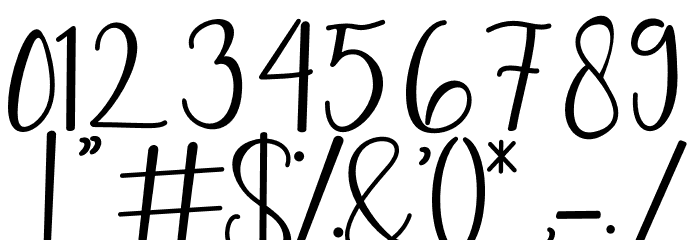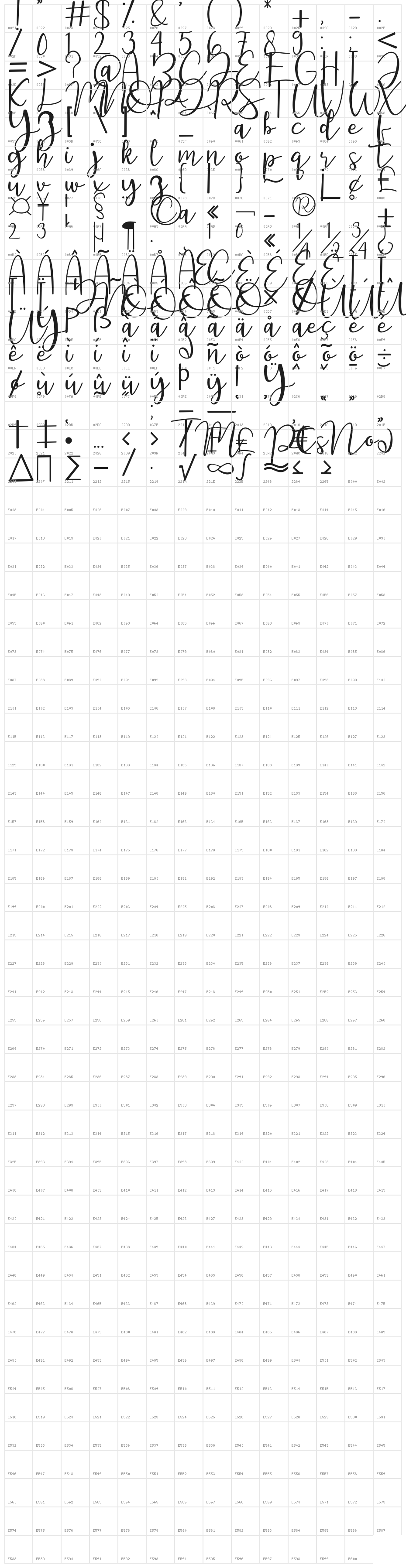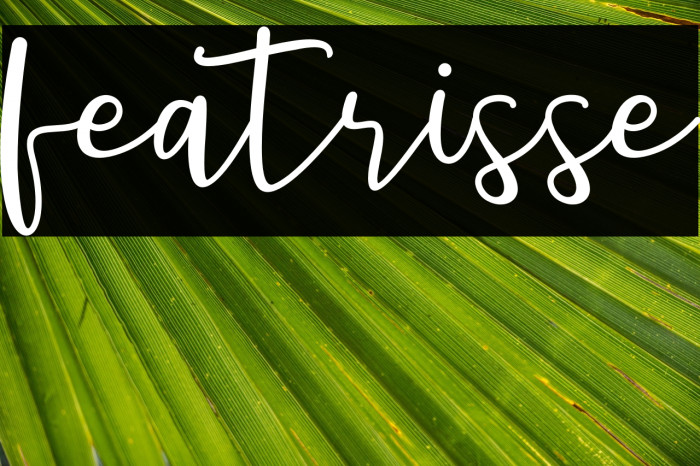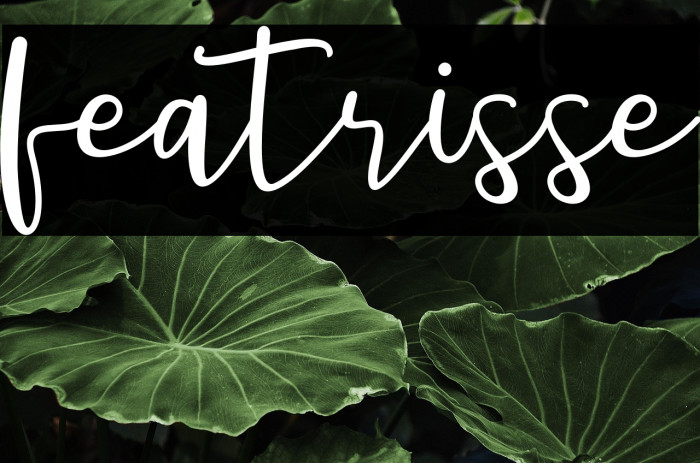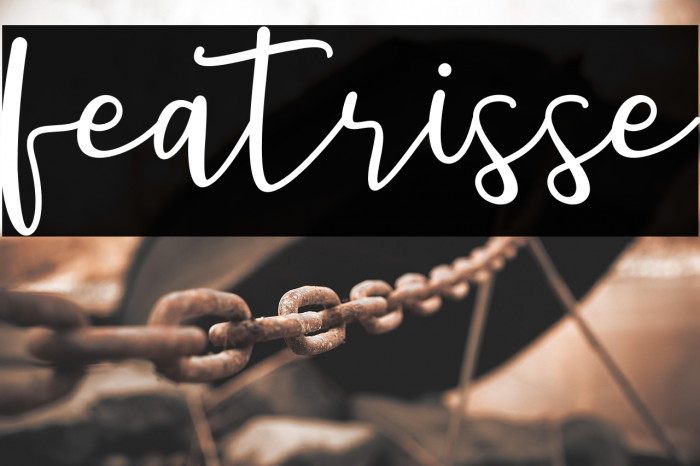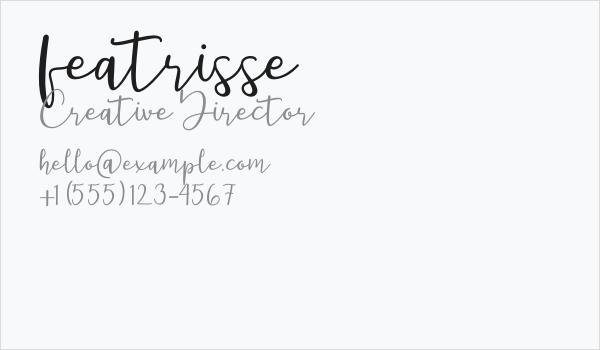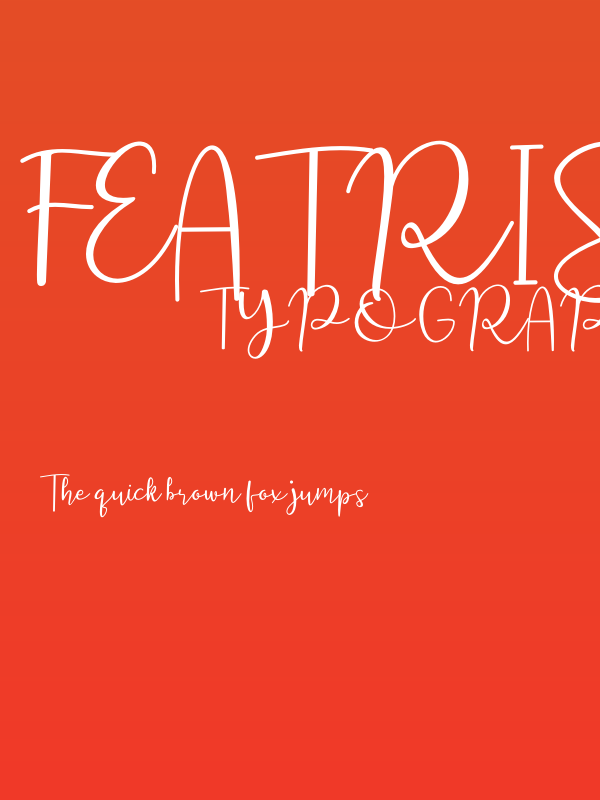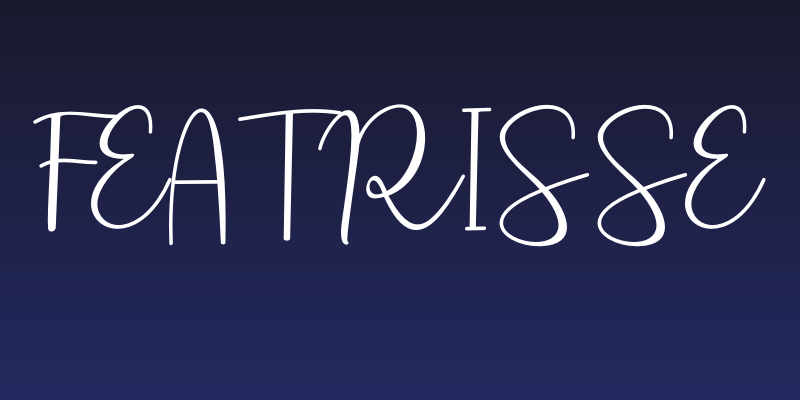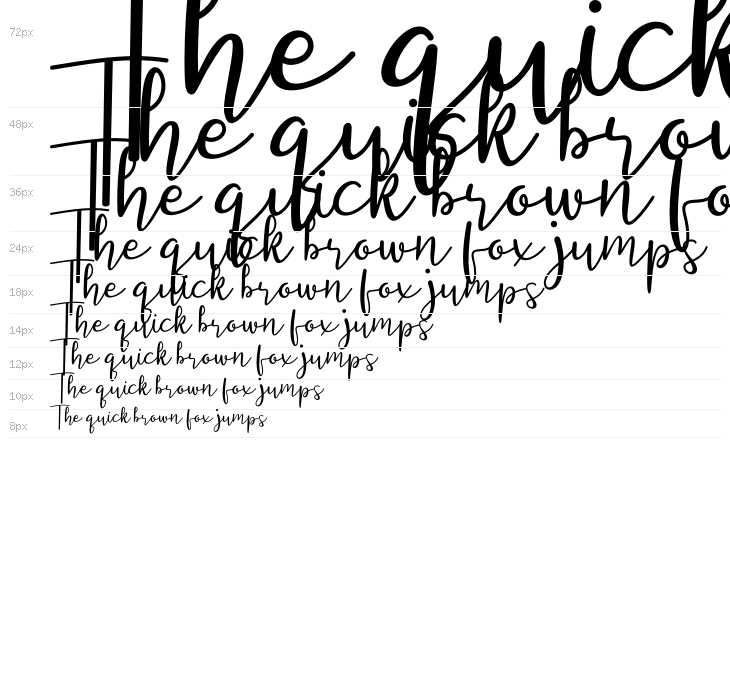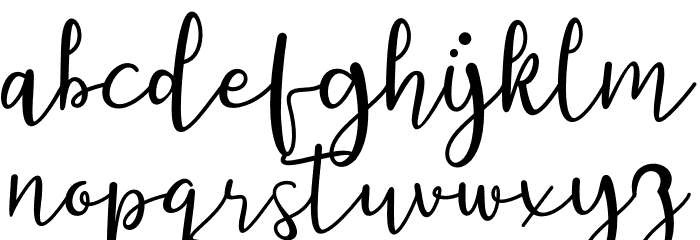
featrisse Font
featrisse Description
This font features a playful and elegant script style with a handwritten appearance. The uppercase letters are characterized by smooth, flowing lines and a slight slant, giving them a dynamic and lively feel. The lowercase letters maintain a consistent style, with rounded forms and a natural, cursive flow. The numerals are clear and distinct, matching the overall aesthetic with their curved and slightly whimsical design. Special characters are integrated seamlessly, maintaining the font's cohesive look. This font exudes a sense of creativity and personal touch, making it suitable for projects that require a friendly and approachable vibe.